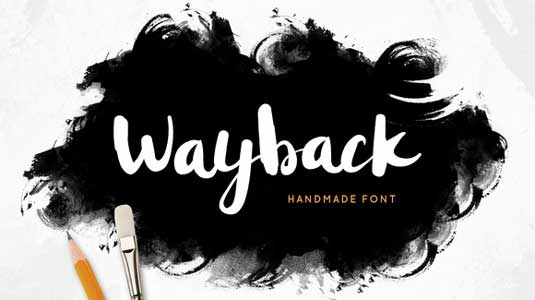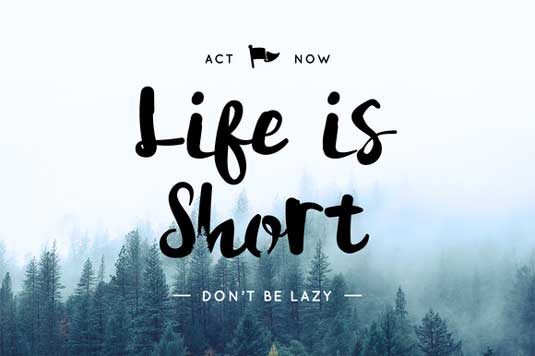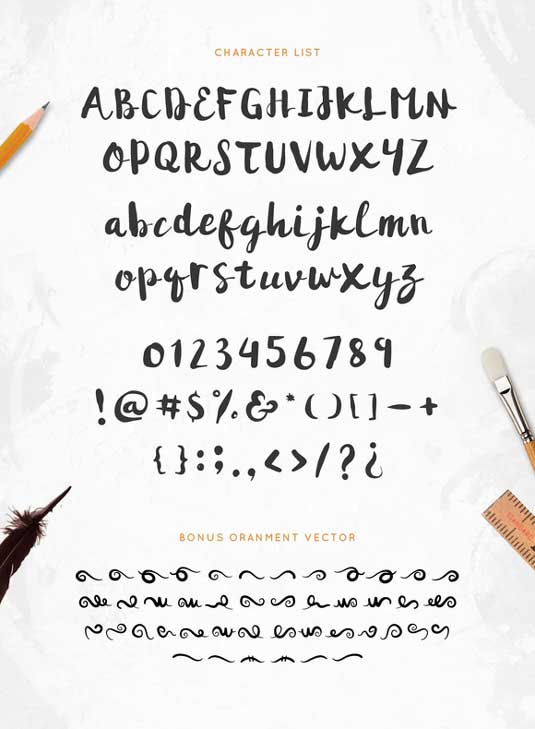
Font of the day: Wayback
Every day we showcase the best fonts on the web. Today it's Wayback by Agung Syaifudin.
Wayback by Agung Syaifudin
Kicking off this week's font of the day posts is Wayback by UI designer and illustrator Agung Syaifudin. A carefully crafted handmade typeface, Wayback is great for branding, logos, stationery and more.